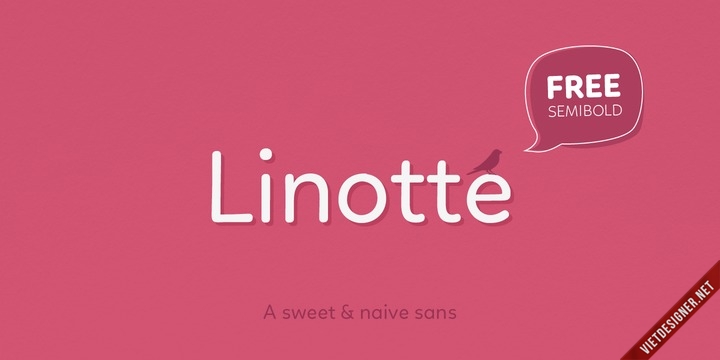
[Round Sans-serif] Linotte - Rounded Sans Family Việt hóa
Thông tin về font Linotte
Linotte is a rounded sans family with good vibes, designed by Joël Carrouché. Slight irregularities give the typeface a warm and naive look, while the solid geometric construction allows good legibility in long texts and small sizes. Linotte is ideal to set texts for food or kid related products, and anything that needs to convey a friendly feeling.